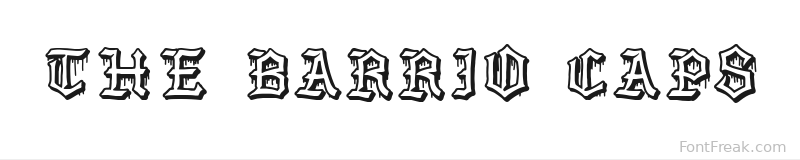
The Barrio Caps
The Barrio Caps is a striking display typeface designed by woodcutter Manero, released in 2017 under a freeware license. This font embodies a decorative style that captures attention with its unique aesthetic, making it ideal for a range of creative projects. Characterized by its bold stroke weight and intricate details, The Barrio Caps features a high contrast between thick and thin lines, which adds to its visual impact. The spacing is well-balanced, ensuring legibility while maintaining a captivating appearance.
This font is particularly suited for eye-catching use cases such as restaurant menus, where its distinctive character can enhance the dining experience. Additionally, it shines in event promotions, making it perfect for posters or flyers announcing music festivals or community gatherings. Graphic designers and content creators will find it invaluable for creating branding materials that demand attention, such as logos and merchandise designs. Wedding invitations can also benefit from its unique flair, adding a touch of personality to the celebration.
Targeting graphic designers, small business owners, and content creators, The Barrio Caps offers a versatile option for those looking to make a memorable impression. Its unique design elements resonate with audiences seeking a bold and engaging visual identity.
What sets The Barrio Caps apart is its ability to blend playful charm with a sense of tradition, making it versatile for both modern and classic design applications. With its distinctive look and the added advantage of being a font free download, it’s a must-have for anyone looking to elevate their typographic choices. Whether you’re designing for print or digital media, The Barrio Caps offers an unforgettable visual experience.